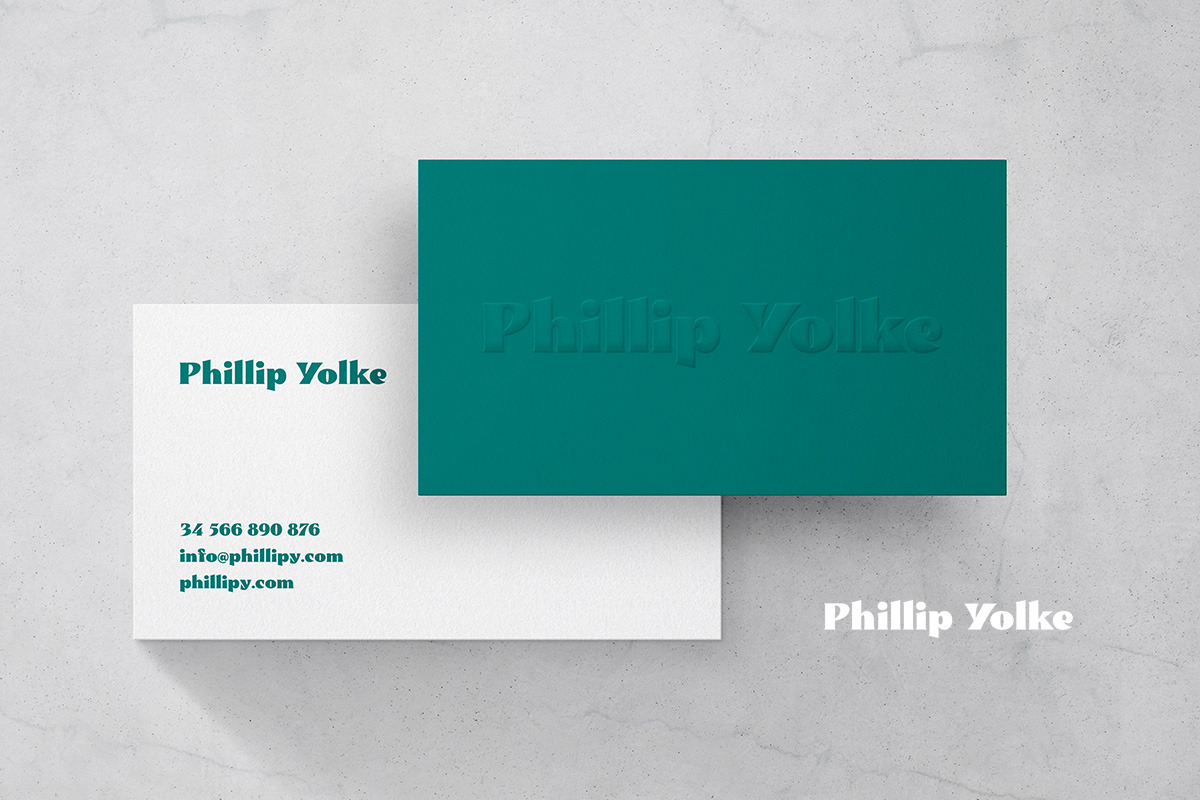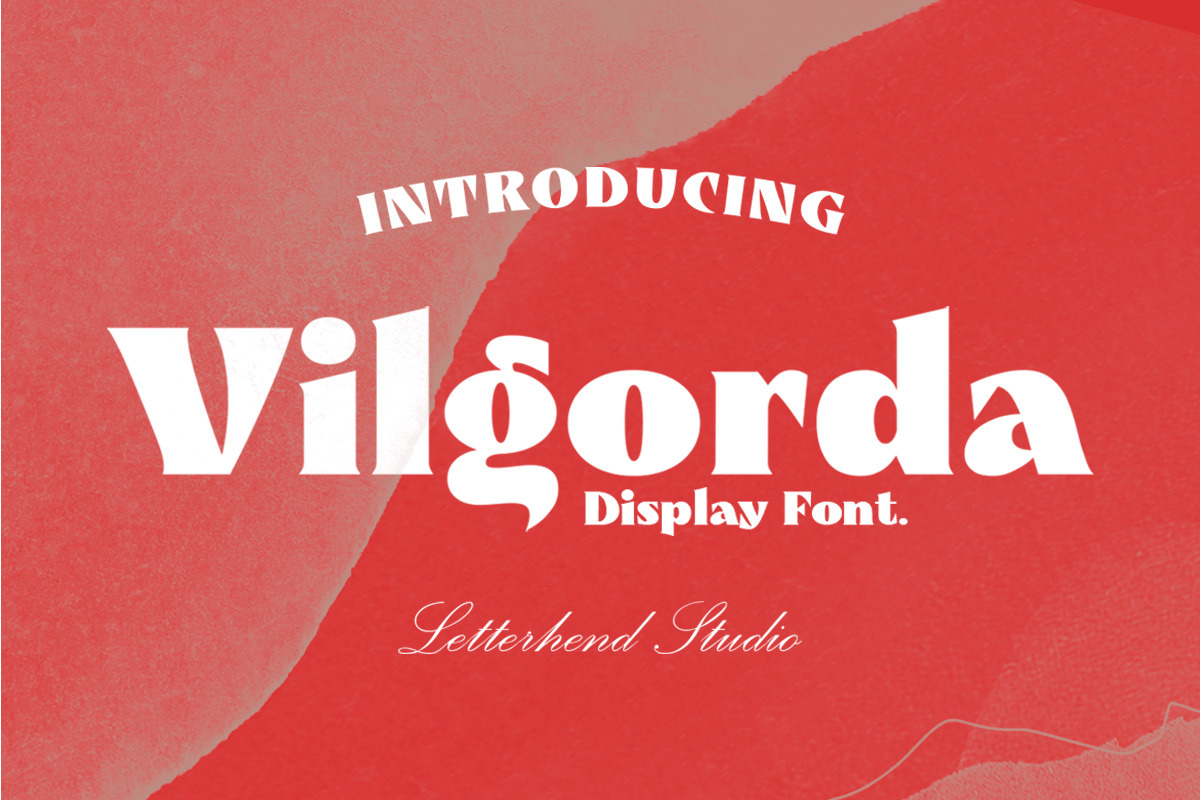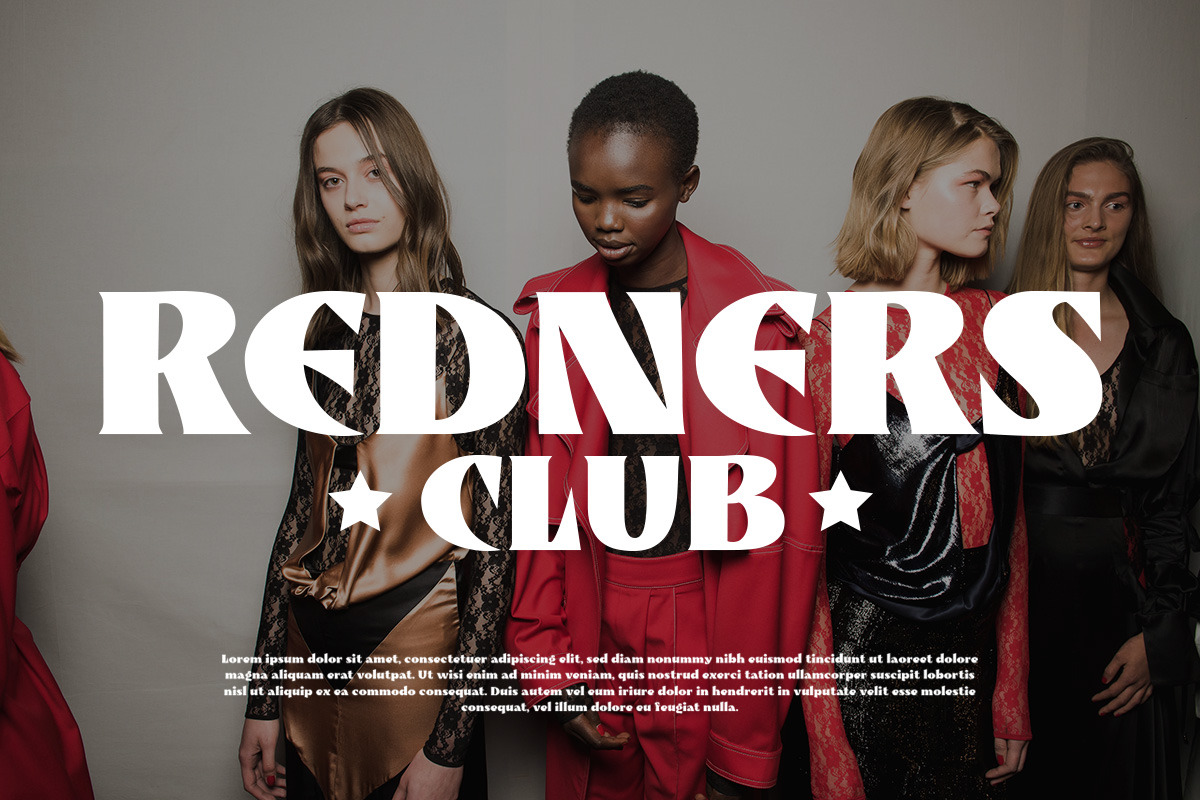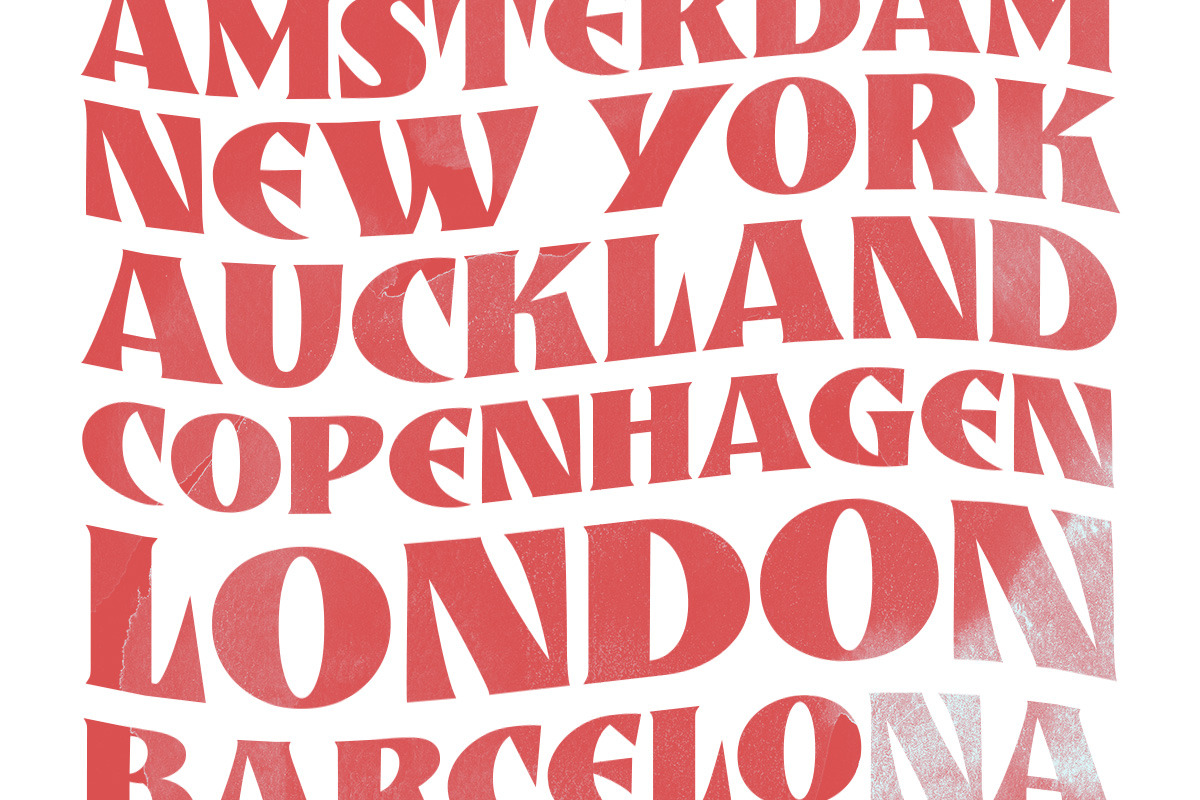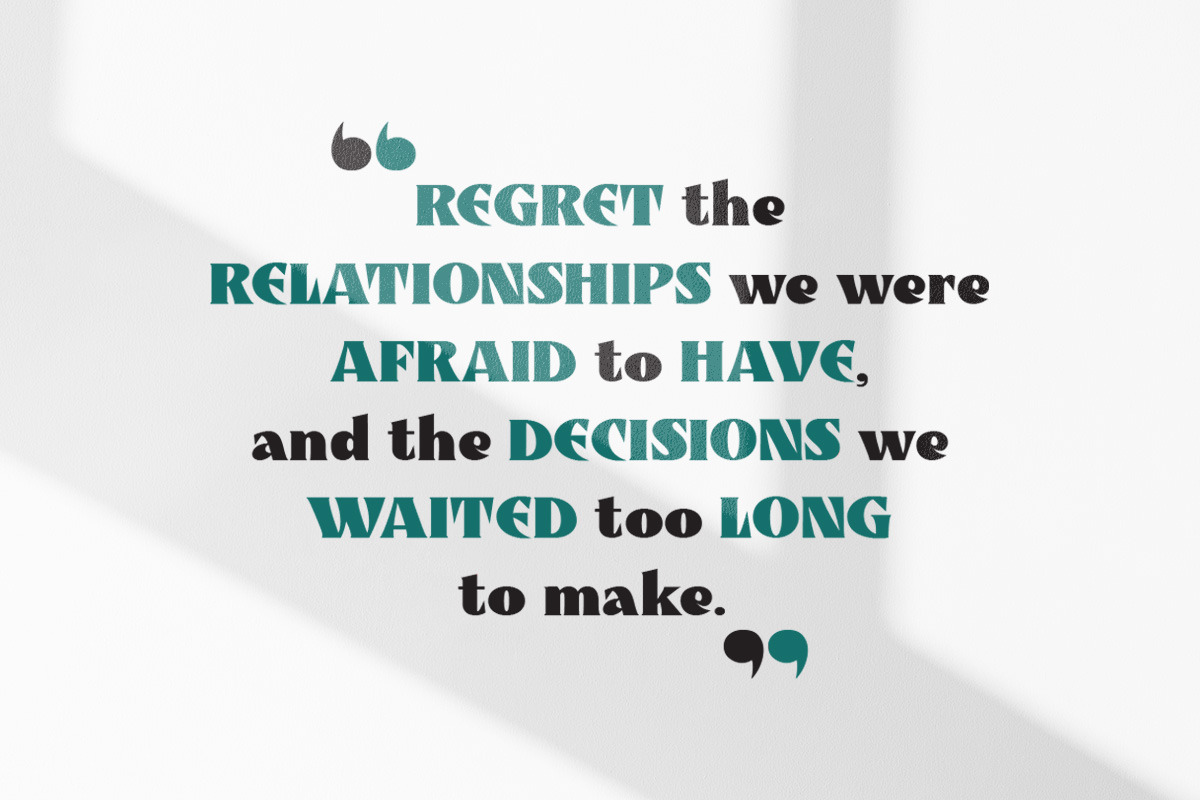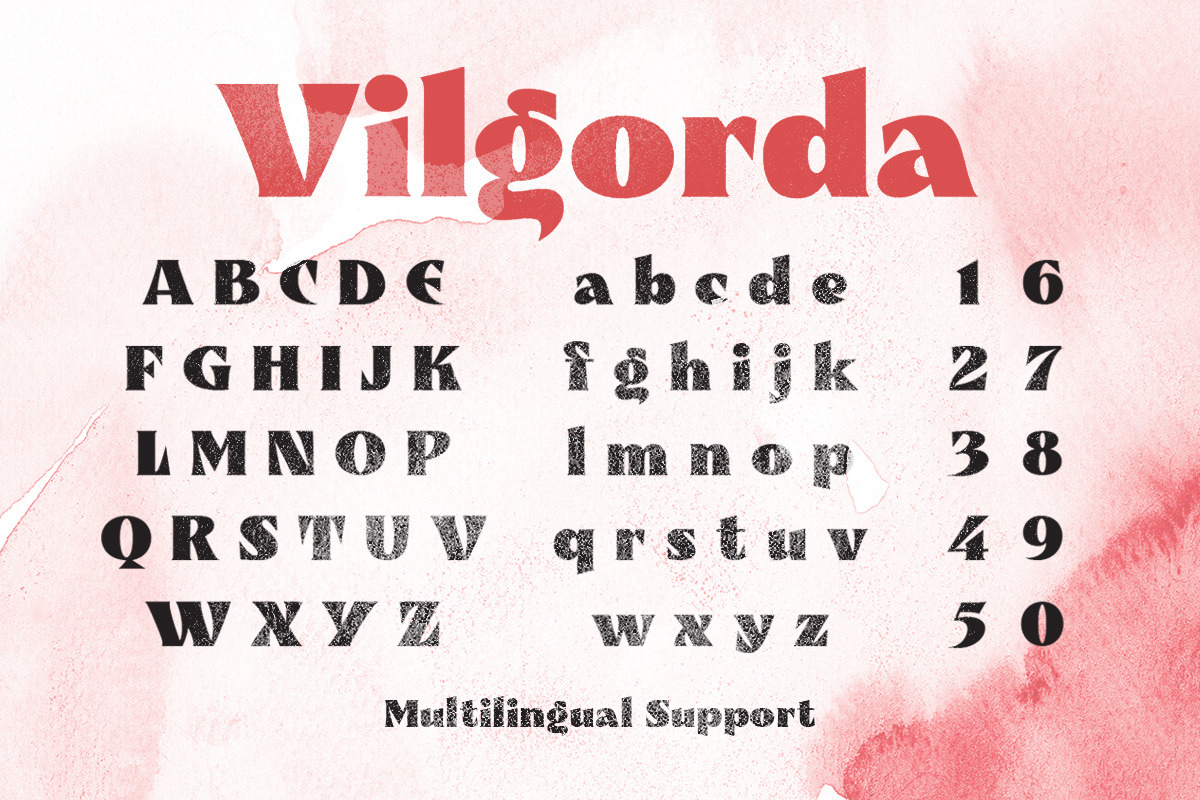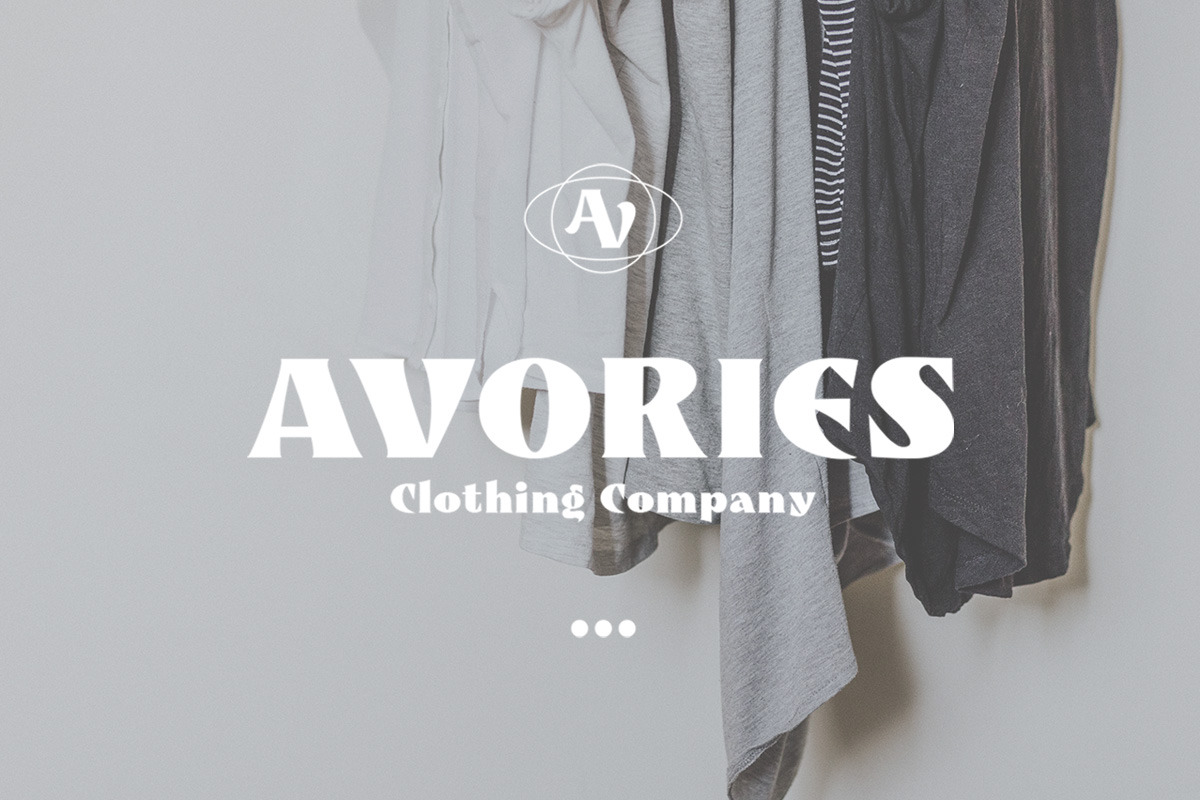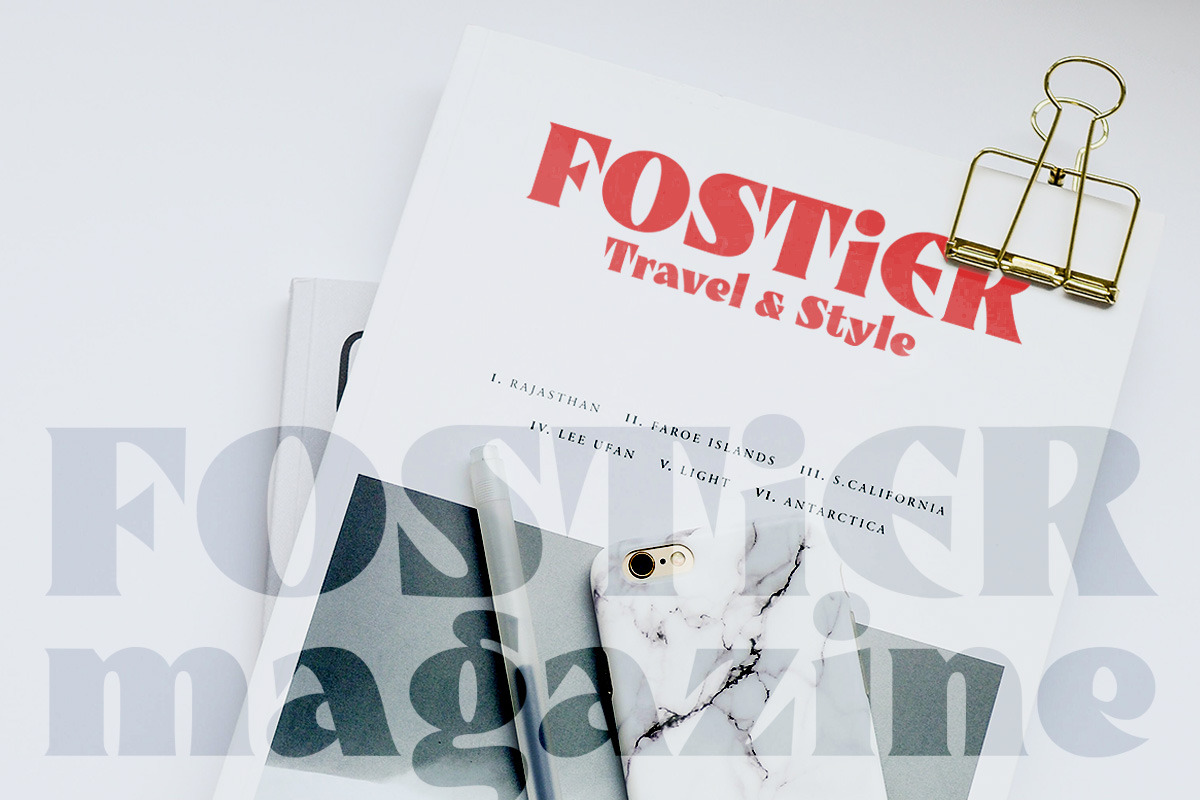
Vilgorda Display Font
Vilgorda is a unique bold display font. This type of font perfectly made to be applied especially in logo, headline, signage and the other various formal forms such as invitations, labels, logos, magazines, books, greeting / wedding cards, packaging, fashion, make up, stationery, novels, labels or any type of advertising purpose.